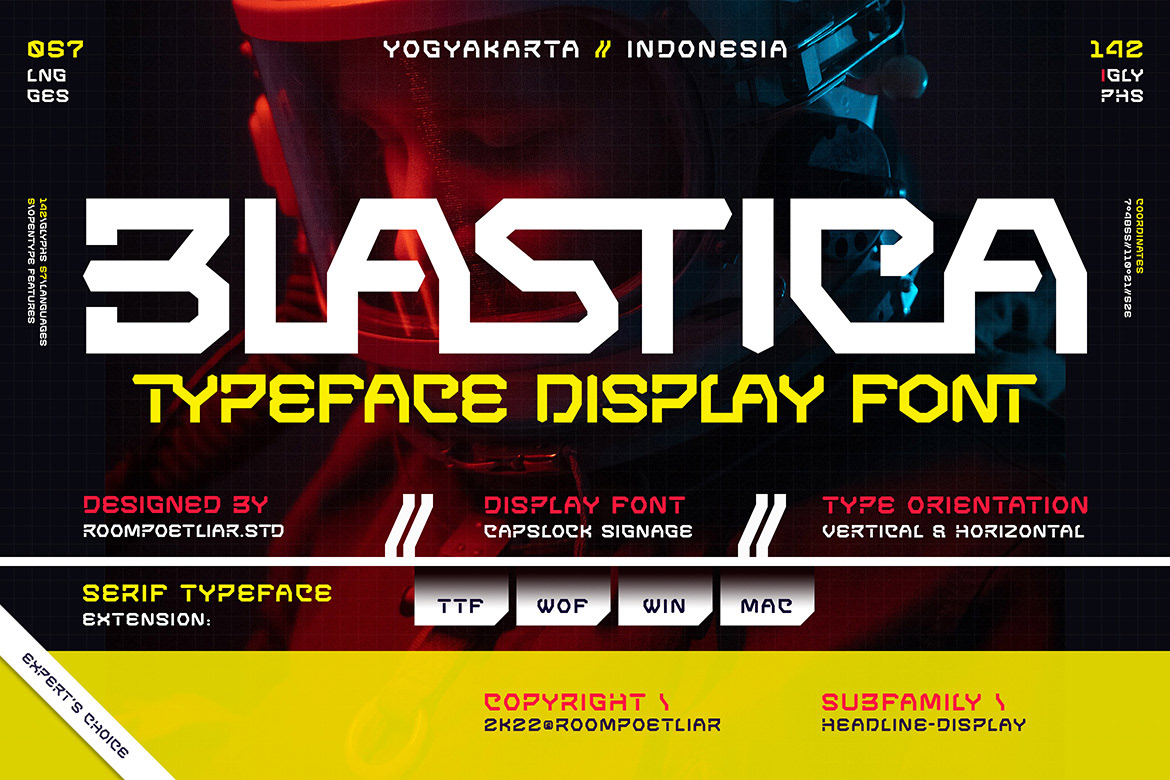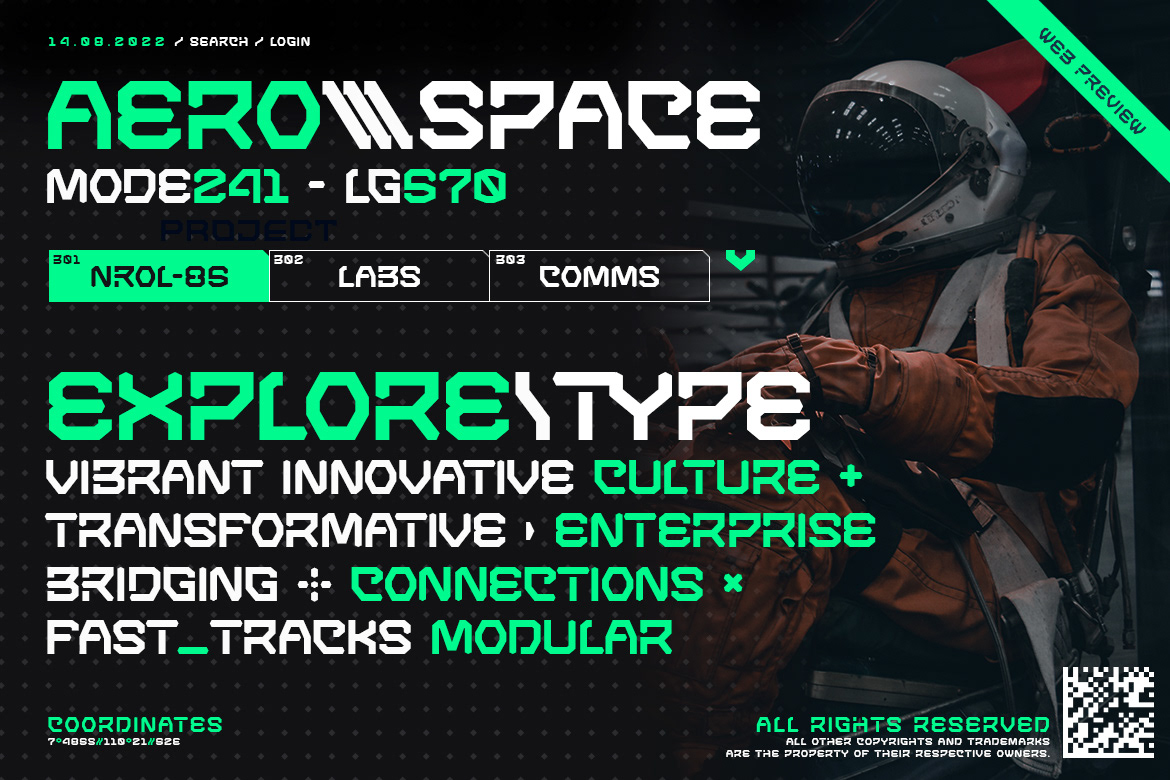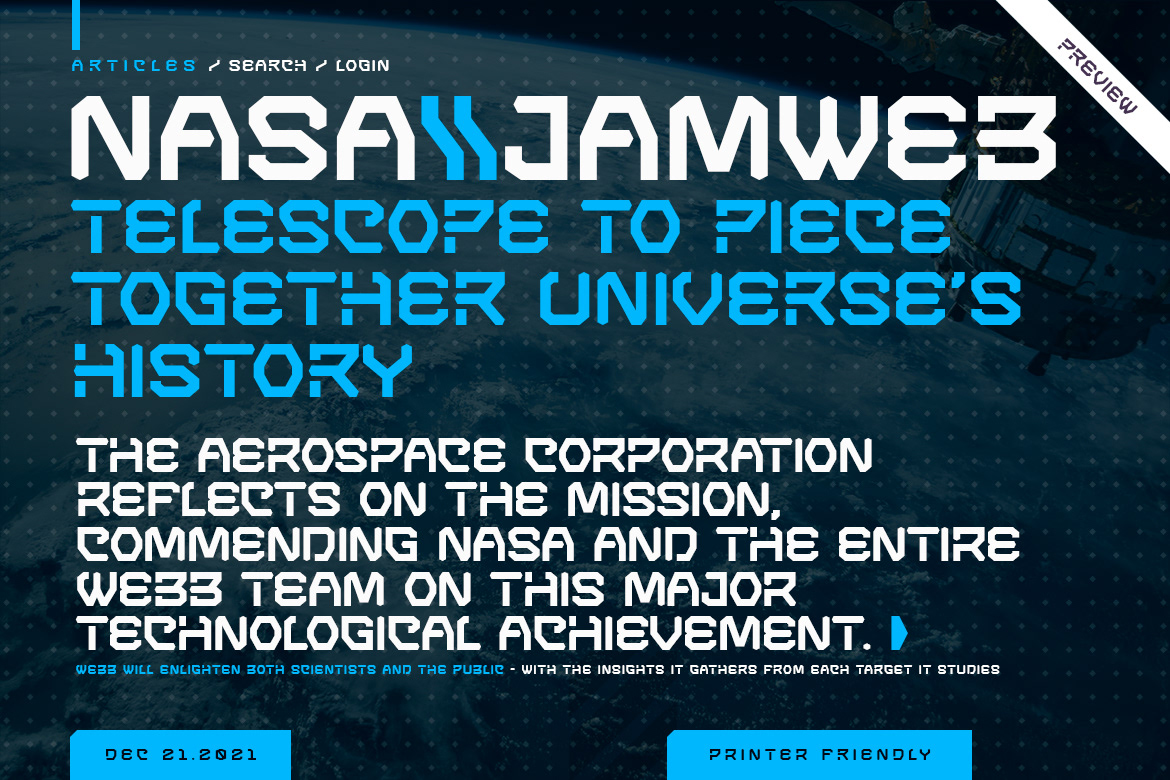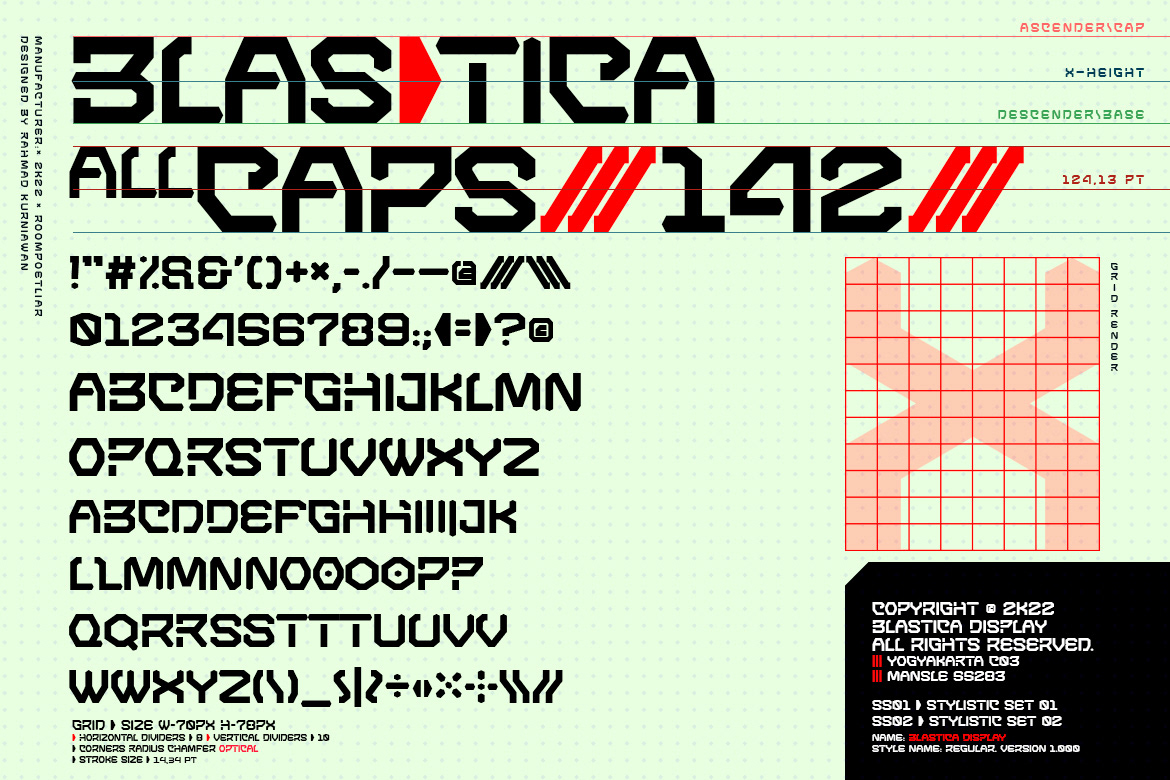
Blastica Display Font is a futuristic font, inspired by sci-fi and technology. Designed the font with a modern feel to achieve the theme. Suit perfectly for future and science segmented magazine, marketing design, technology, sci-fi design, poster, movie title, music poster, youtube covers, youtube thumbnails, social media page covers, poster designs, headlines, typography projects (streetwear, construction, resistance, solidarity, movement, revolution), E-Sport logos, sports jersey text, and much more.